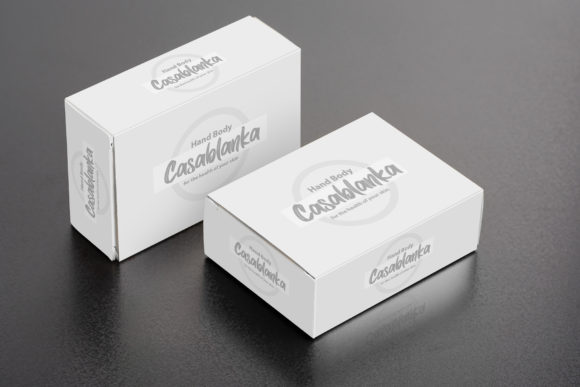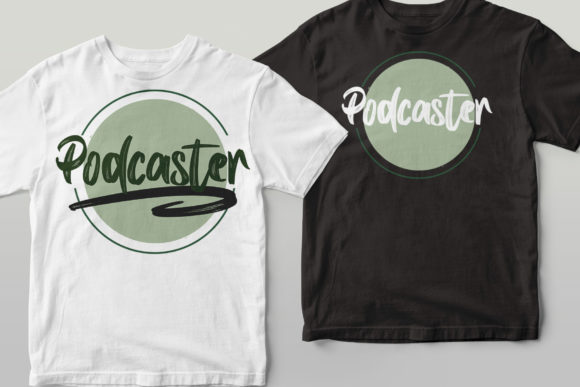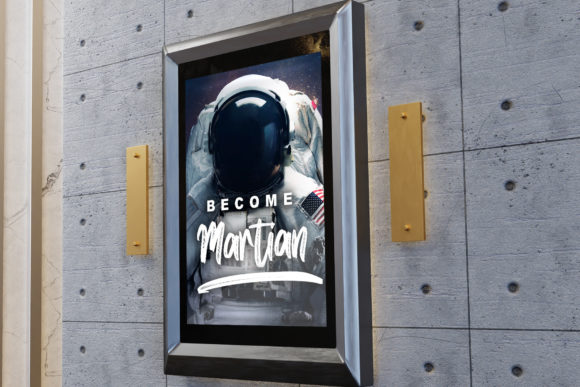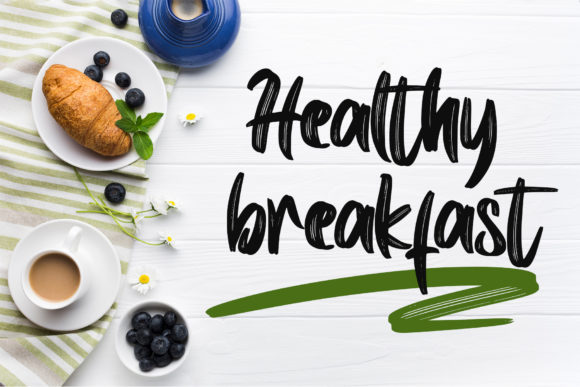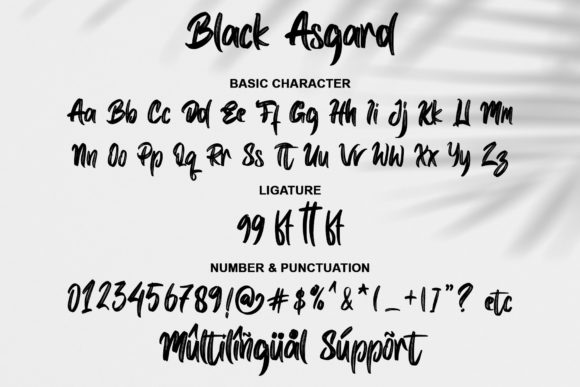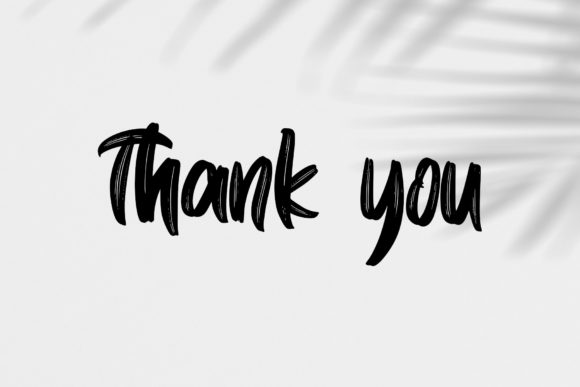
The Ultimate Guide to Black Asgard Font: A Designer’s New Best Friend
I’ll never forget the time I was working on a wedding invitation project, and my client asked for a font that was both elegant and rustic. I scoured the internet, tried countless fonts, but nothing seemed quite right. That was until I stumbled upon Black Asgard Font. It was love at first sight! 💕
Black Asgard is a natural dry brushed handwritten font that has become a staple in my design toolkit. Its versatility and charm make it perfect for various projects, from logos and wedding invitations to headings, t-shirts, and more.
An Honest Review of Black Asgard Font
What I Love About Black Asgard Font ✨
- 💯 Unique and distinctive look: Black Asgard has a one-of-a-kind dry brushed effect that adds a touch of personality to any design.
- ✅ Highly versatile: This font can be used for a wide range of projects, from formal to informal, and still look great.
- 🎨 Great for creative freedom: With its extensive range of glyphs and OpenType features, Black Asgard gives you the creative freedom to experiment and try new things.
- ⚠️ Some letters may require manual kerning: As with any font, you may need to adjust the kerning of certain letters to get the perfect look.
- 😐 Not ideal for body text: Black Asgard is best used for headings, titles, and short paragraphs. Its dry brushed effect can be a bit too ornate for longer blocks of text.
- Experiment with the font’s OpenType features, such as glyphs and stylistic alternates, to add some extra flair to your design.
- Use the font’s OpenType features, such as ligatures and stylistic sets, to add some extra personality to your design.
The Backstory of Black Asgard Font
Black Asgard was designed with the intention of creating a font that was both elegant and rustic. The designer wanted to capture the essence of hand-painted signs and distressed wood, while still maintaining a level of sophistication and refinement. The result is a font that is both unique and versatile.
Q: What is the best way to use Black Asgard Font?
A: Black Asgard is best used for headings, titles, and short paragraphs. Its dry brushed effect can be a bit too ornate for longer blocks of text.
Q: Is Black Asgard available in different languages?
A: Yes, Black Asgard supports multiple languages, but be sure to check the font’s documentation to confirm which languages are supported.